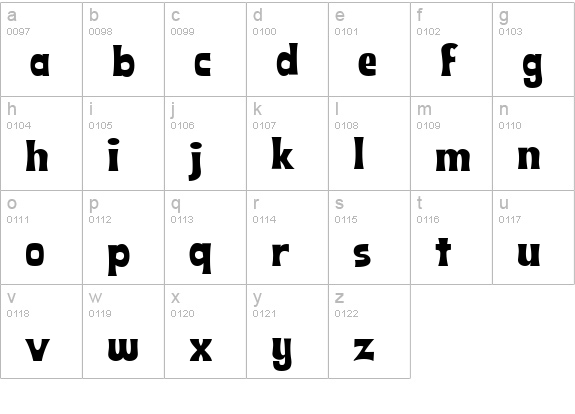
KonTikiTraderJF Font Details
KonTikiTraderJF font is a modern and stylish typeface that exudes a sense of adventure and creativity. With its unique letterforms and dynamic design, this font is perfect for projects that require a bold and eye-catching look. Whether you're creating posters, logos, or branding materials, KonTikiTraderJF font will make your text stand out. Best of all, KonTikiTraderJF font is available for free download at FontsMarket.com. This means you can easily access this versatile font and use it in your projects without any cost. Don't miss out on the opportunity to enhance your designs with the captivating KonTikiTraderJF font today!